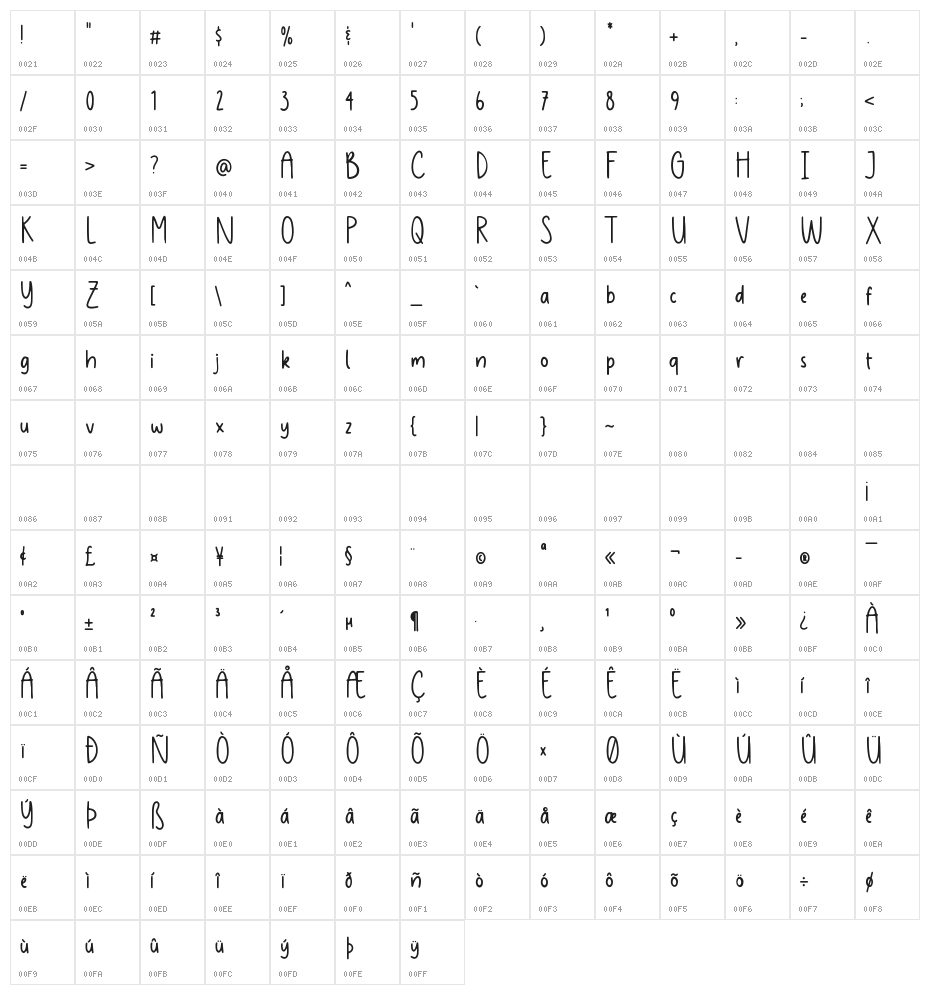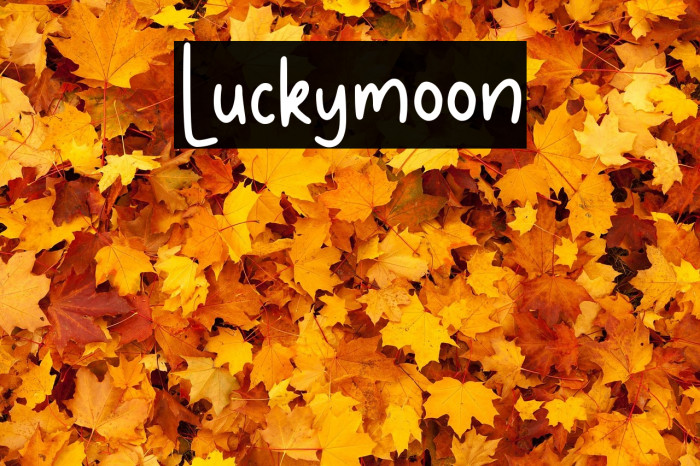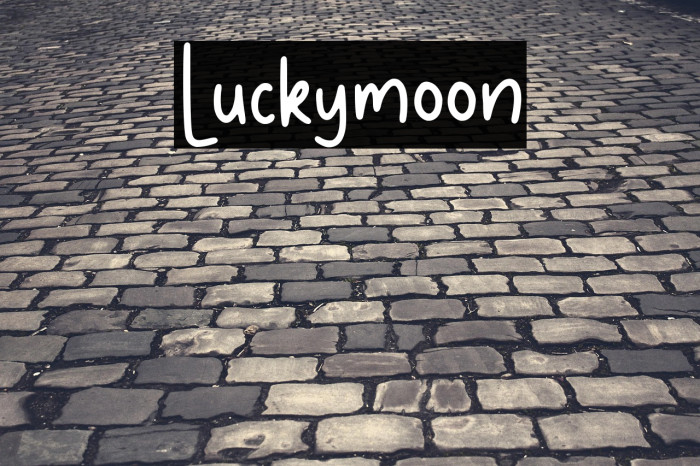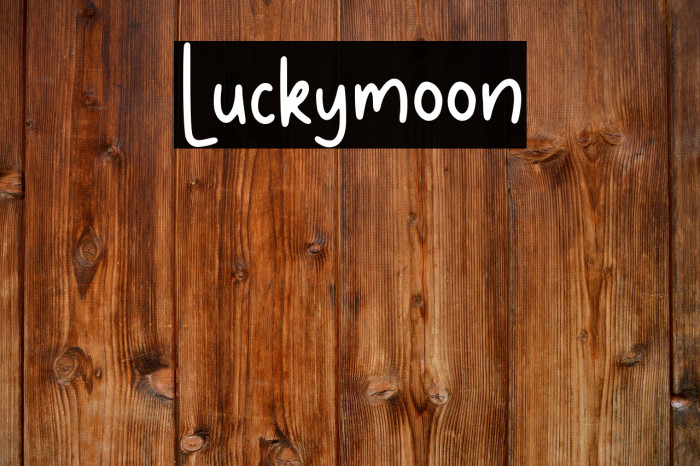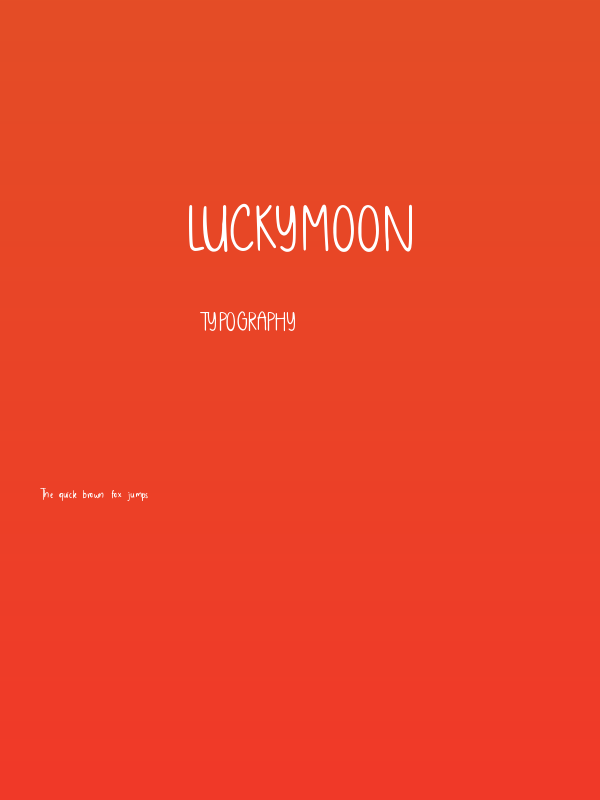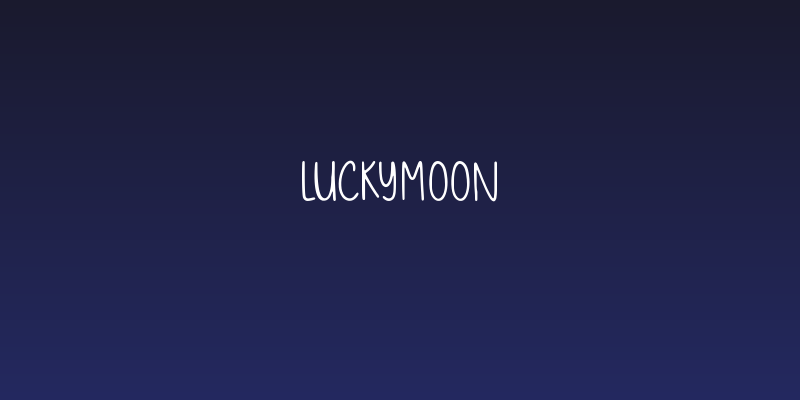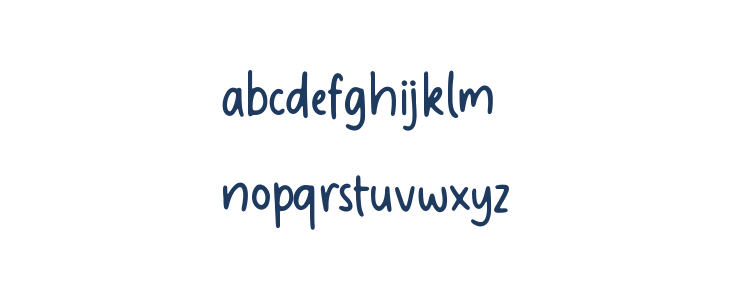
Luckymoon Font
Luckymoon Description
This playful and casual font features a handwritten style with a friendly and approachable appearance. The letters are slightly irregular, giving it a personal touch that mimics natural handwriting. The strokes are smooth and rounded, contributing to its informal and relaxed vibe. It maintains good legibility with clear character shapes, making it suitable for various creative projects. The font includes a full set of uppercase and lowercase letters, numerals, and a selection of punctuation marks and special characters, providing versatility for different design needs.
| Overall Style | Casual |
| Use Case | Headlines, Informal text, Creative projects |
| Proposed Projects | Ideal for greeting cards, children's books, playful branding, and social media graphics. |